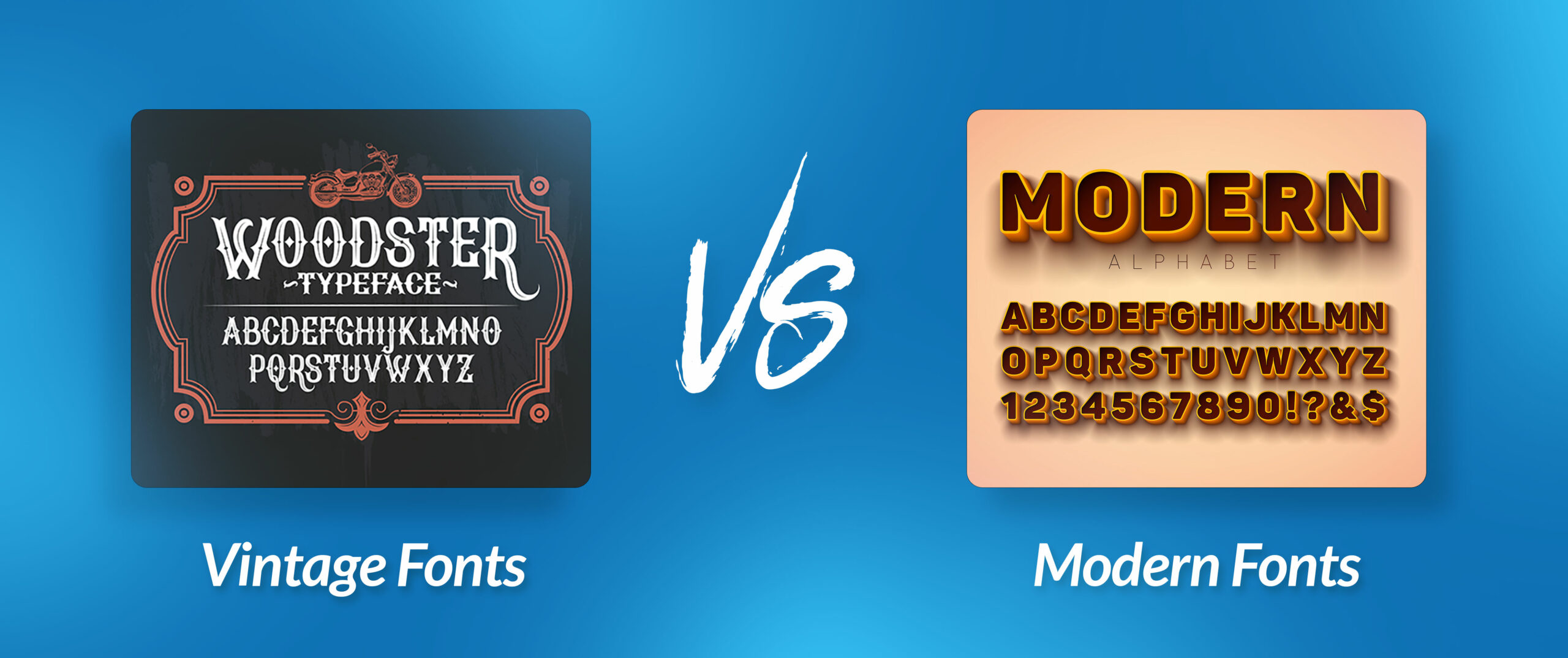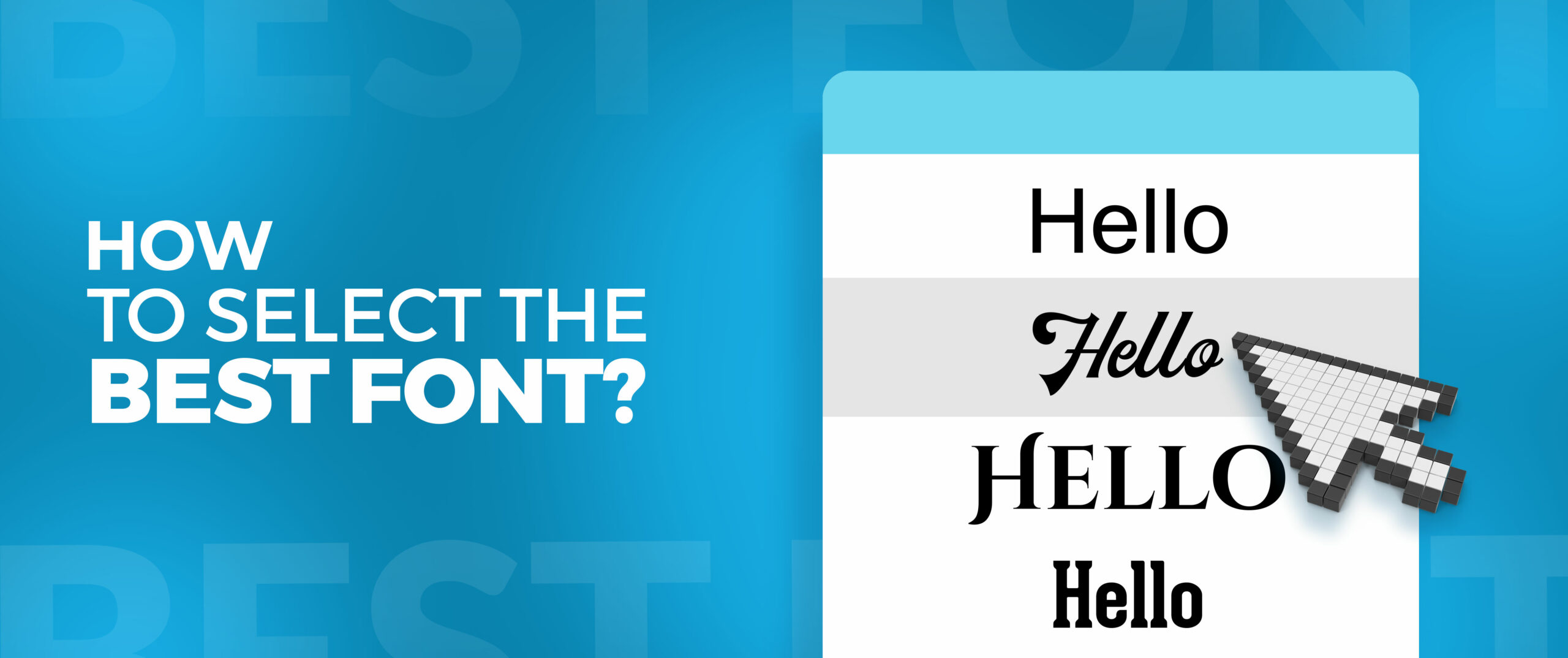
Fonts act as the foundational elements of design. They are the forms that create the words we see in text. Similar to how various bricks can be used to construct various types of houses, different fonts can evoke different emotions. A strong, thick font can yell, whereas a graceful, cursive font can murmur. Selecting the correct font is akin to selecting the appropriate outfit – it can either enhance or detract from your appearance.
Let’s investigate the various kinds of fonts available. We will discuss the different situations in which to use each one and the ways to blend them together to make stunning designs. Understanding fonts is crucial when it comes to creating visually appealing work such as posters, websites, or emails with a sophisticated touch.
The Different Types of Fonts
Fonts act as various vocal tones. Some people are outspoken and confident, while others are quiet and kind. There are various fonts available, each with its unique character. So whether you are looking for a font for your custom logo design or any other purpose this guide will explain everything in detail. Let’s examine a few popular ones and discover what sets them apart.
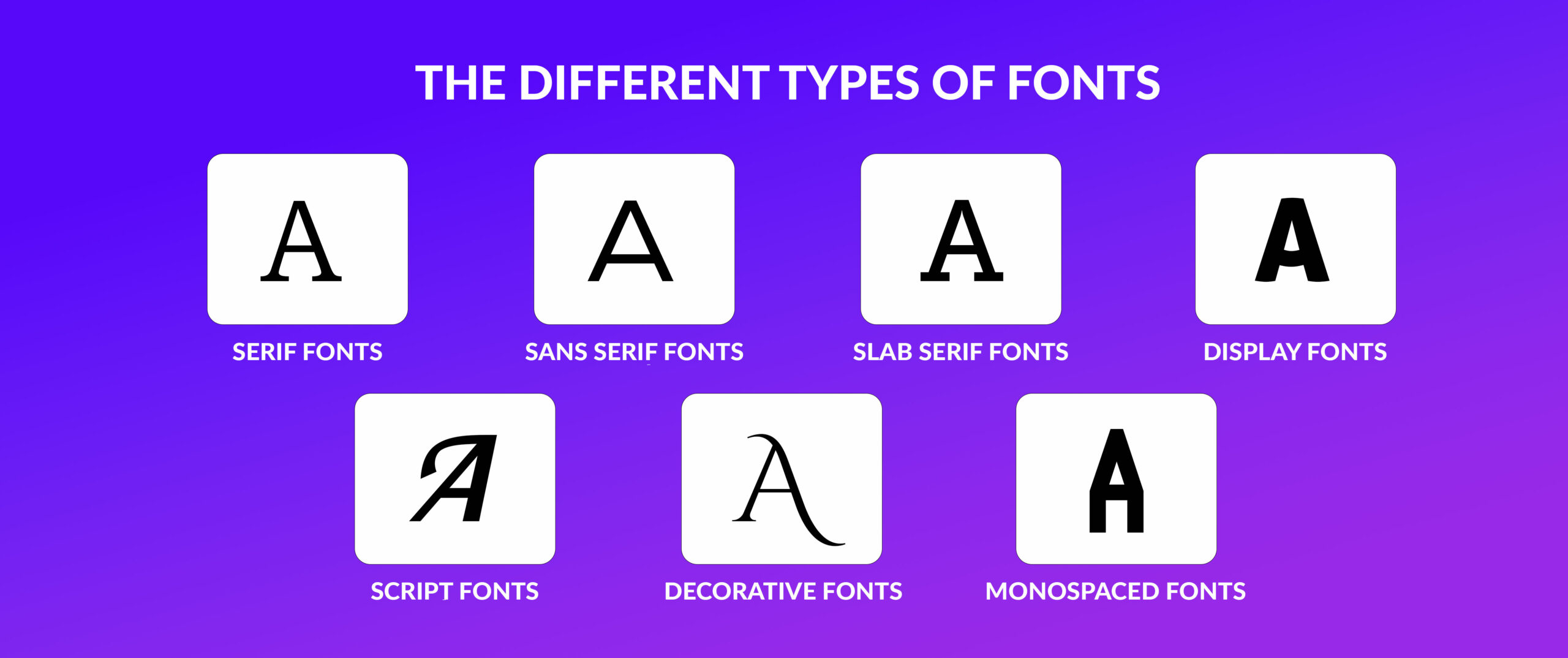
Serif Fonts
Serif fonts remain the traditional option for a variety of designs. These font styles, identifiable by the small lines or feet at the end of each letter, have been in existence for many centuries. They provide a feeling of customary and sophistication. Consider serif fonts as the elegantly attired guests at a fancy gathering.
Frequently used serif typeface titles are Times New Roman, Garamond, and Georgia. These styles of fonts are frequently utilized in books, magazines, and newspapers as they are simple to read in extended passages of text. Although serif fonts are adaptable, they may seem overly formal for contemporary designs at times. Nonetheless, if they are implemented properly, they can enhance a project with a sense of refinement and elegance.
Sans Serif Fonts
Sans serif fonts are the contemporary equivalent of serif fonts. They are neat, straightforward, and lack the tiny lines that typically follow each letter. This typeface is commonly linked with simplicity and modern aesthetics. Consider sans serif fonts as the naturally stylish individuals in the room.
Common sans serif font options are Helvetica, Arial, and Roboto. These styles of fonts are commonly utilized in digital design, including websites, apps, and interfaces. Their reputation lies in their clarity on screens and their capacity to achieve a sleek and contemporary appearance. Sans serif fonts offer flexibility for a range of projects, from eye-catching titles to understated body paragraphs.
Slab Serif Fonts
Slab serif typefaces offer a contemporary and daring interpretation of the traditional serif design. Rather than having thin, elegant serifs, they have bold, bulky ones, creating a sturdy, geometric appearance. Consider them to be the bold, self-assured individuals in the font group.
Examples of commonly used slab serif fonts are Rockwell, Clarendon, and Courier. These types of fonts are commonly utilized for headings, captions, and brief passages of text owing to their powerful visual effect. These can enhance your designs with a hint of industrial chic or retro charm. Even though they can be utilized for body text, their strong style may be too intense for extended passages.
Display Fonts
Show fonts are the divas of the font universe. Their purpose is to catch the eye and convey a message. There are numerous styles of font types available, ranging from fun and whimsical to bold and extravagant. They resemble the flashy personalities seen in a film.
Display fonts are commonly utilized for titles, brand marks, and promotional materials. They can be mixed with other font styles to create contrast and add visual appeal. Nevertheless, it is crucial to utilize them in moderation, as an excessive amount of display fonts can overpower a design. Examples of popular display fonts are Blackletter, Art Deco, and Comic Sans. Keep in mind that even though these fonts are visually appealing, they may not be suitable for body text because of their frequently low readability.
Script Fonts
Fonts that imitate handwriting mimic the look of personal and elegant script. They range from calm and sleek to sophisticated and ornate. Think of script typefaces as the graceful ballet dancers of the font world.
Cursive, calligraphy, and signature are all well-liked script font styles. These fonts are commonly used for special events like invitations and wedding items. They can elevate your designs with a touch of sophistication and charm. However, be careful when using script fonts in large quantities for body text, as they can create readability issues.
While script fonts may be visually appealing, it is important to pair them with a more readable font for the main text.